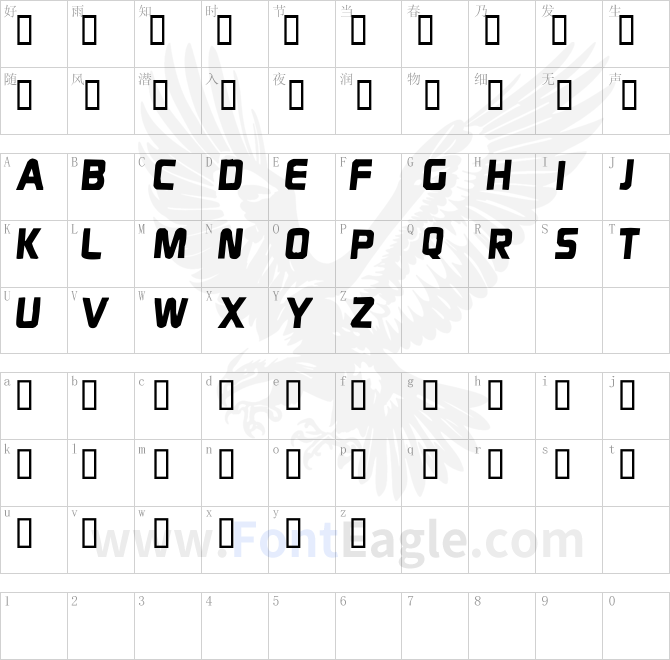
DisPepsi is a great font, widely used in graphic design, single-page menu design, poster design and other fields, and is deeply loved by designers.DisPepsi download.